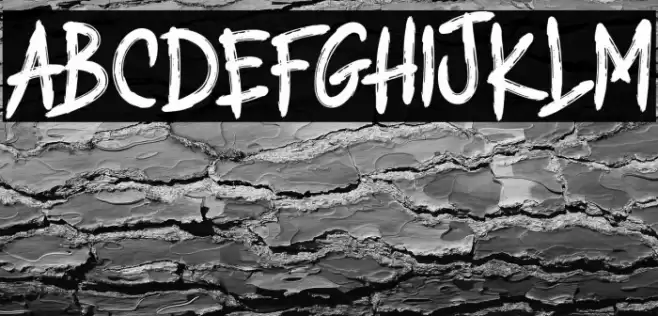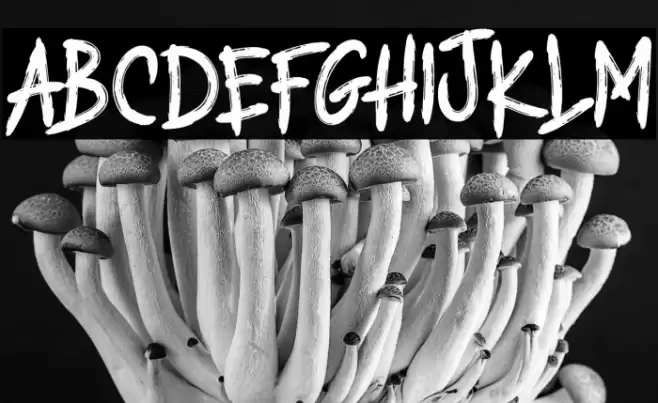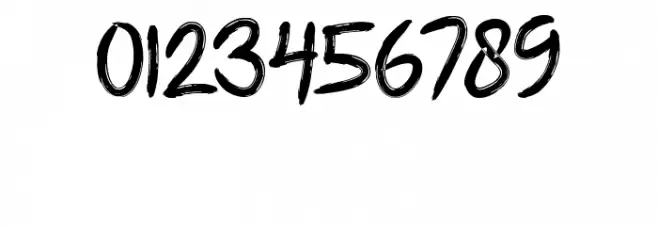
THE RANDOTS Font
THE RANDOTS Description
This font features a bold and energetic style with a hand-drawn appearance. The letters are slightly irregular, giving it a dynamic and lively feel. The strokes are thick and have a brush-like texture, which adds to its informal and playful character. The uppercase letters are prominent and stand out, making it suitable for attention-grabbing designs. The numbers maintain the same energetic style, ensuring consistency across different uses. This font is ideal for projects that require a casual and artistic touch.
A bold, hand-drawn font with a lively and energetic style from Uncategorized fonts.
- Font: THE RANDOTS
- Proposed Projects: Ideal for posters, album covers, graffiti art, and creative branding projects.